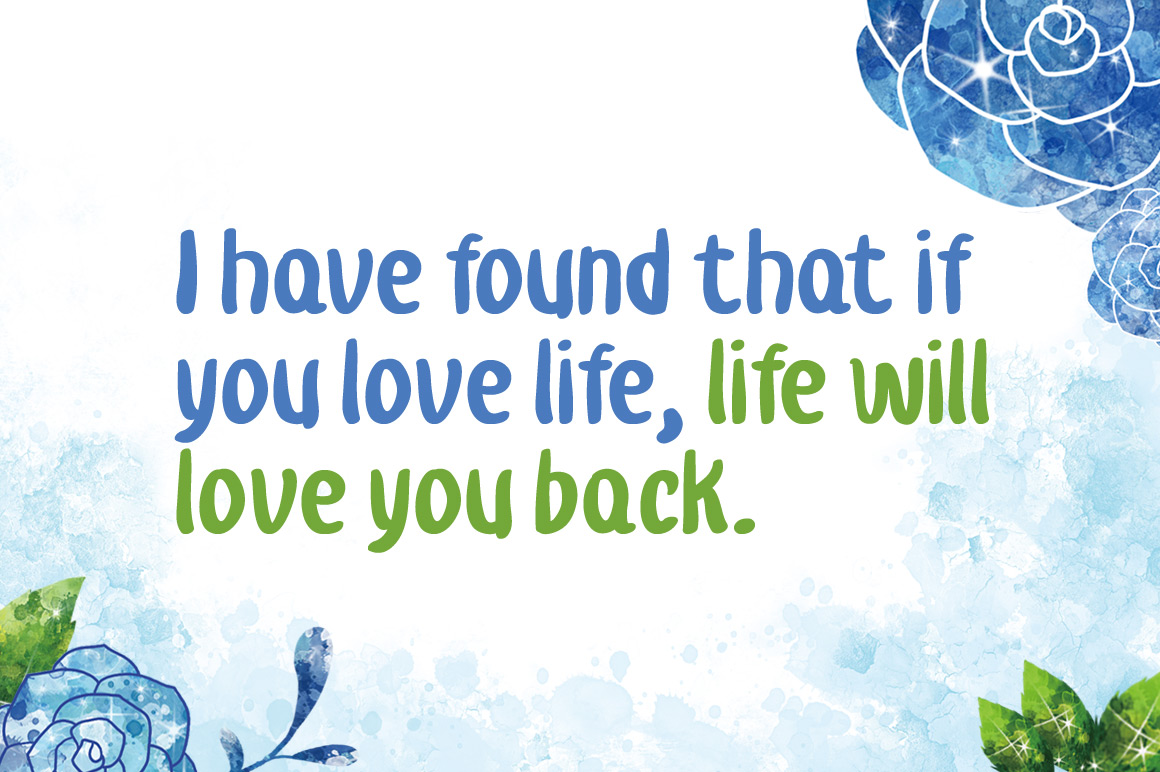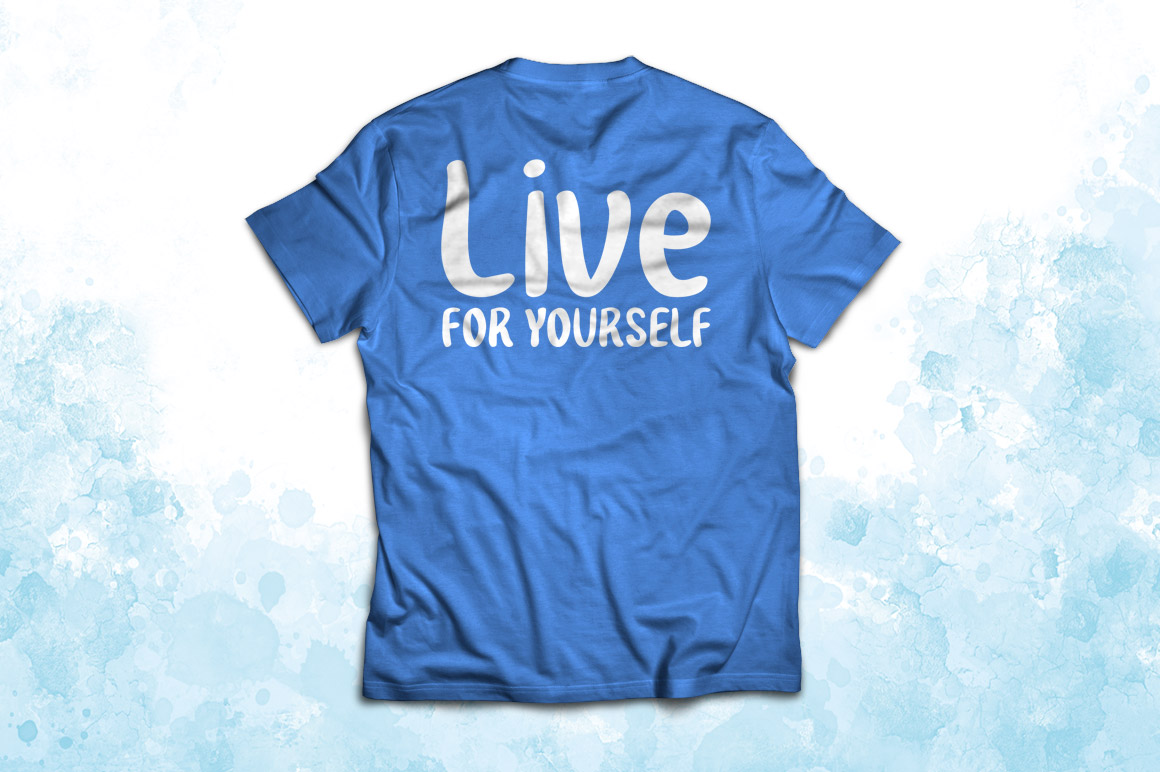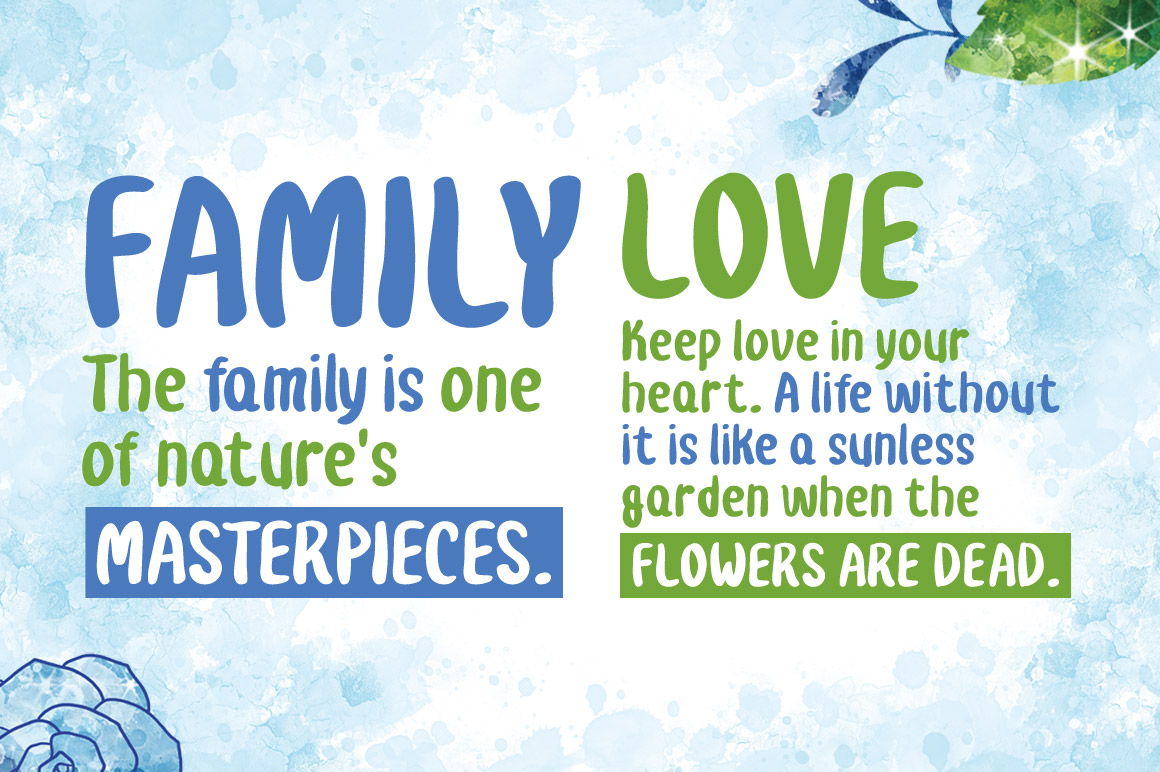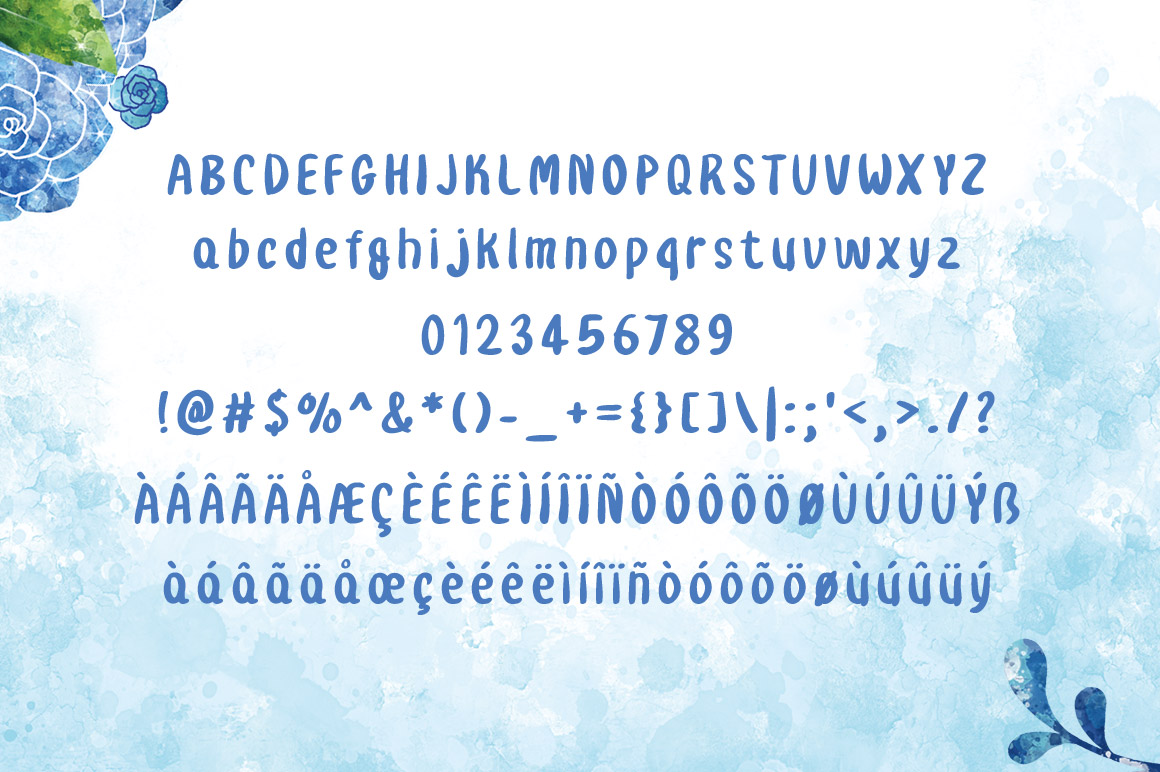
Introduction to Rising Sunday Font
Remember that moment when you’re working on a creative project and you just can’t seem to find the right font to match your vision? The perfect typography can make or break the entire design, and it’s often the most frustrating part of the process. But what if I told you that there’s a font that can bring warmth and personality to your designs, making it easier to stand out from the crowd?
Enter the Rising Sunday Font, a beautiful and legible sans serif handwritten font that’s perfect for headlines and display designs. This high-quality font is not only free to download but also offers a transparent background, making it easy to integrate into your design resource. With its friendly and approachable feel, the Rising Sunday Font is a valuable addition to any designer’s toolkit.
- High-quality, modern design: Rising Sunday Font is a unique and stylish font perfect for creative projects that require a touch of elegance and sophistication.
- Unique characteristics: Rising Sunday Font features a unique blend of modern and vintage elements, making it a standout choice for designers looking to add some personality to their creative projects.
Honest Review: Rising Sunday Font
As a designer, I’m always on the lookout for high-quality design resources to enhance my creative projects. Recently, I stumbled upon the Rising Sunday Font, and I’m excited to share my honest review.
- ✨ Unique and modern design aesthetic that adds a touch of sophistication to any project.
- ✨ Clear and transparent background, making it easy to overlay on images or use as a standalone element.
- ✨ Excellent for use in digital projects, such as website headers, social media graphics, or marketing materials.
- ⚠️ Limited character set, which may not be ideal for projects requiring extensive text.
- ⚠️ Not suitable for print projects, as the font may not render well on physical materials.
Overall, the Rising Sunday Font is a great addition to any designer’s toolkit. Its modern design and transparent background make it an excellent choice for digital projects. While it has some limitations, I believe its strengths outweigh its weaknesses. If you’re looking for a high-quality font to enhance your creative project, I recommend giving the Rising Sunday Font a try.
The Rising Sunday Font is a high-quality, versatile design resource perfect for creative projects. With a transparent background, this font is easy to use in various applications.
To get the most out of the Rising Sunday Font, use it in combination with other design elements to create a cohesive look. Experiment with different font sizes and colors to add depth and visual interest to your project.
The Rising Sunday Font is ideal for a variety of creative projects, including graphic design, web design, and print design. It’s also a great choice for social media graphics, blog posts, and marketing materials.